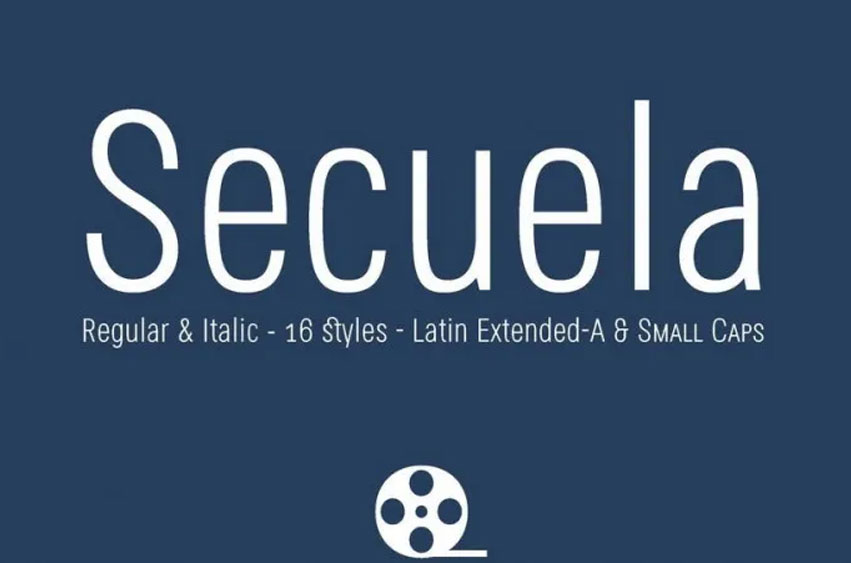
Secuela Font Family can be described as a contemporary condensed font featuring simple geometric characters with soft round edges and a contemporary appearance. It fuses geometric design elements and neo-Gothic aesthetics, featuring shorter descenders and humanized curves for added warmth and character, which helps prevent the harshness of pure graphic fonts while remaining accessible and easy to read for printed and screen text alike.
Typography includes 704 glyphs that feature large capitals in smaller caps as well as sophisticated Open Type functions and several games of numbers as well as The Bitcoin symbol. Styles that use italic font feature both lowercase letters as well as certain capital letters with numerous optical corrections to correct distortions caused by an inclination angle of 8 degrees.